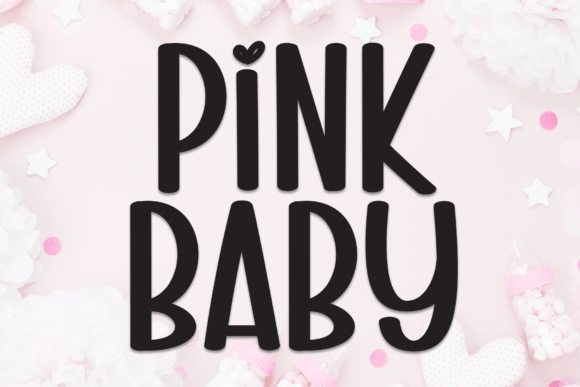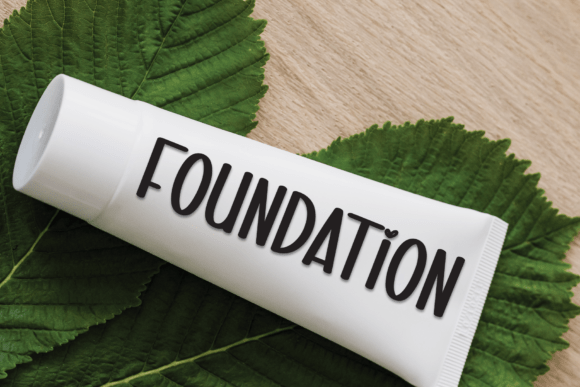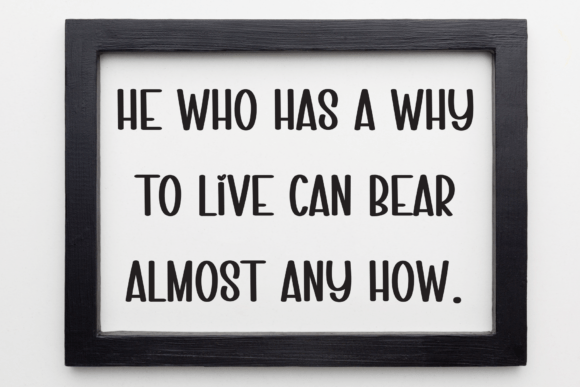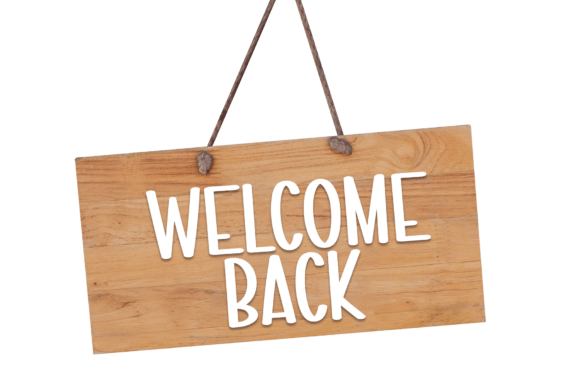
Pink Baby Font
About the Pink Baby Font
Crafted with precision, the Pink Baby Font is ready to bring your ideas to life. Pink Baby is a charming and playful display font designed with love. Its tall, rounded letters and sweet heart dot on the “i” make it perfect for baby shower invites, nursery prints, kids’ apparel, and any design that needs a dose of cuteness and warmth.
Pink Baby’s playful nature makes it ideal for projects needing a touch of youthful energy. It excels in headlines, logos for children’s brands, short marketing taglines, and packaging for sweet treats or toys. However, its limited x-height and decorative elements make it unsuitable for body text or UI elements where readability is paramount. Avoid using it for lengthy paragraphs or applications requiring small point sizes.
To complement its charming character, pair Pink Baby with a clean sans-serif like Open Sans for body copy, providing a strong contrast and ensuring readability. Alternatively, a classic serif like Playfair Display could add a touch of sophisticated elegance, balancing the font’s whimsicality.
Pink Baby’s overall personality is best described as cheerful and friendly, yet sophisticated enough to avoid appearing childish. This makes it versatile for brands targeting young adults or families who appreciate a touch of whimsy without sacrificing visual appeal.
Pink Baby Font Usage Examples
Pink Baby Font Example